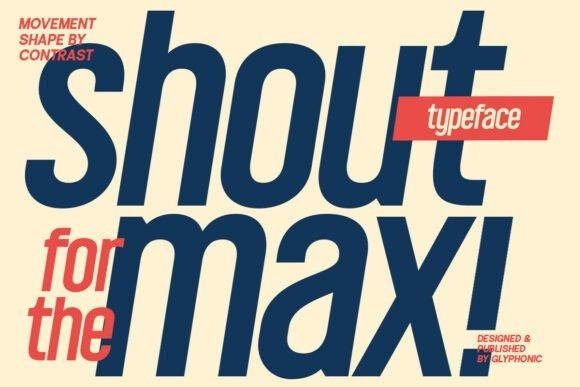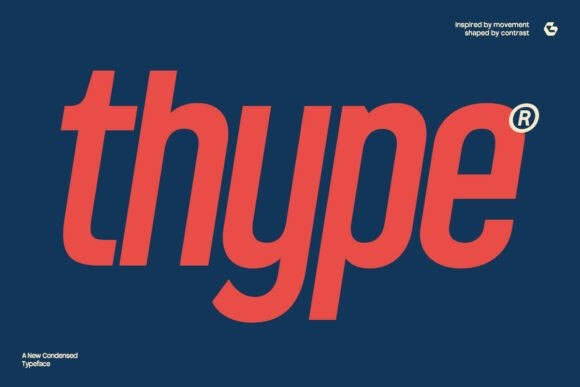
Gcthype Font
GC Thype Font is a contemporary condensed display sans-serif typeface that combines modern minimalism with strong visual presence. Designed for use in headlines, branding, posters, logos, packaging, and editorial layouts, it delivers a confident and memorable impression. Its tall letterforms, tight spacing, sharp terminals, and clean geometric structure lend a distinctive, contemporary character suitable for fashion, streetwear, technology, and creative applications. GC Thype offers a refined, impactful aesthetic that brings clarity and style to any visual composition.